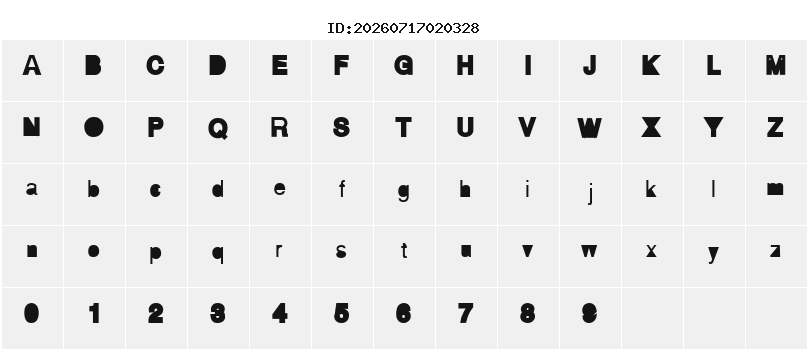
• Font Name: AI hellvertigo
About AI hellvertigo.ttf
AI hellvertigo.ttf is a modern, elegant sans-serif font designed for ultimate readability and visual harmony. Perfect for branding, headlines, web design, and print materials.